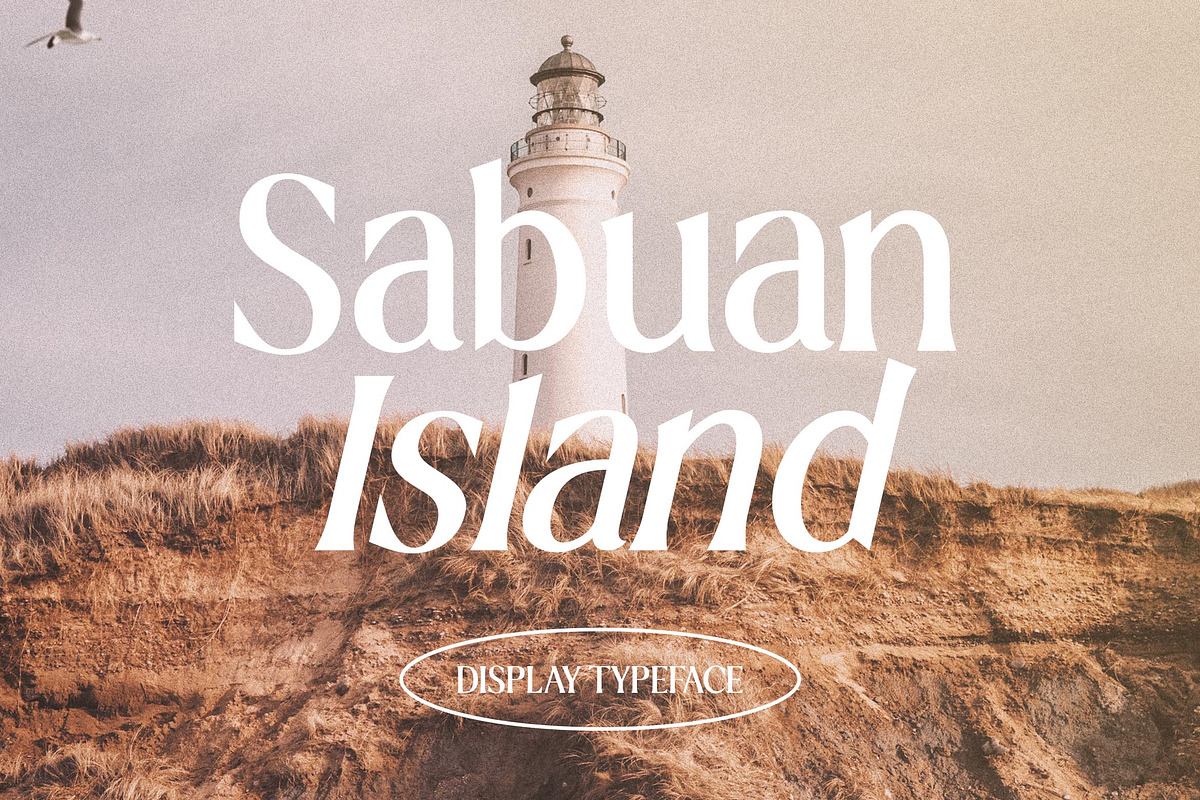
Sabuan Island Display Font Free Download
Introducing Sabuan Island Display Font Free Download, a sleek and simple serif typeface designed to stand out boldly in any context. Perfect for movie titles, album covers, fashion designs, and more, this font offers smooth curves and elegant lettering that convey a sense of luxury and sophistication. Its clarity ensures readability from a distance, making it a versatile choice for various design projects. Download Sabuan Island Display Font Free Download to explore its features in personal projects. For commercial use, please ensure you purchase the appropriate license. Elevate your designs with the refined elegance of Sabuan Island Display Font Free Download